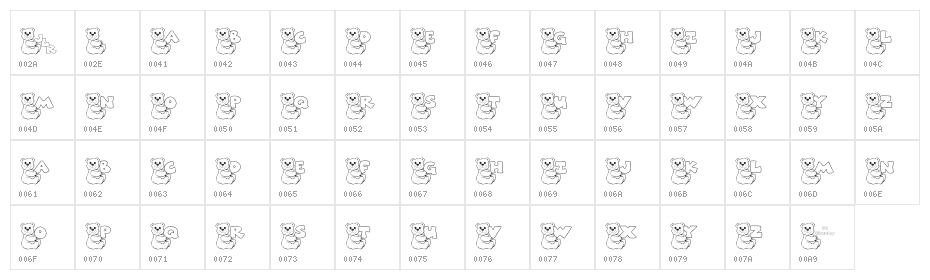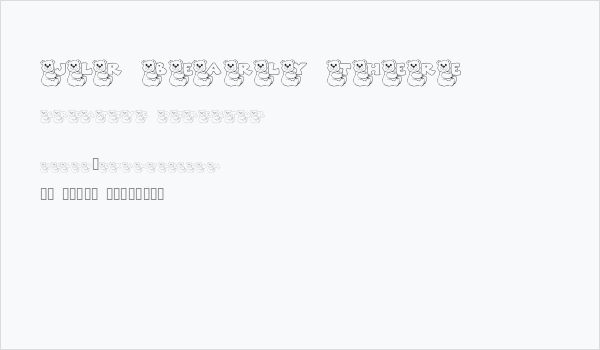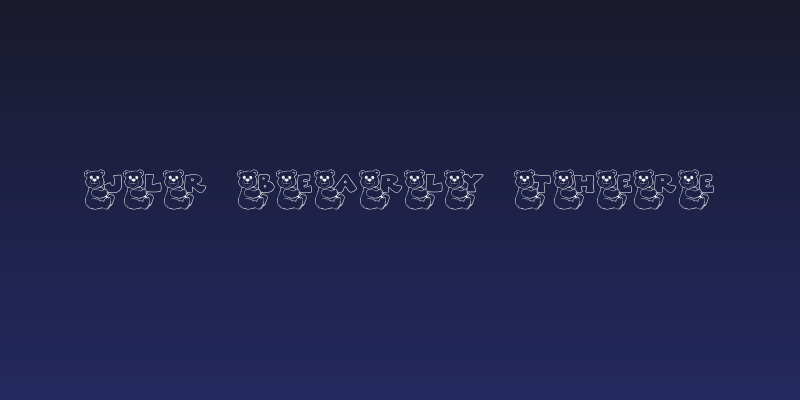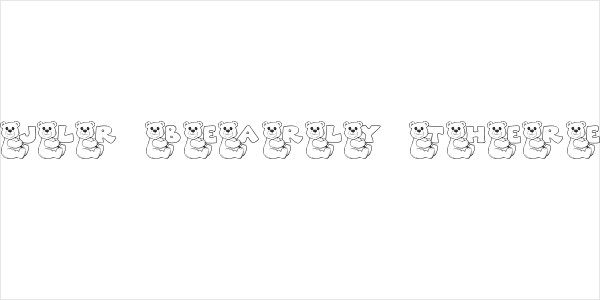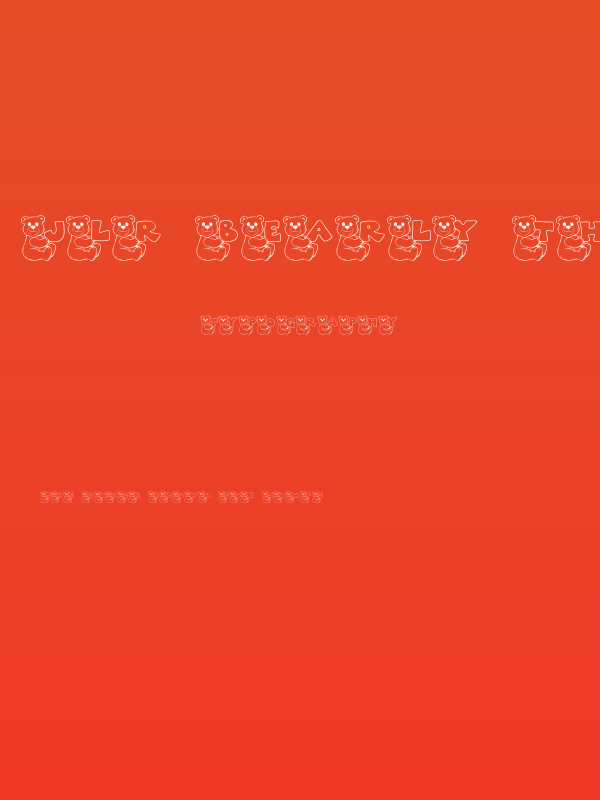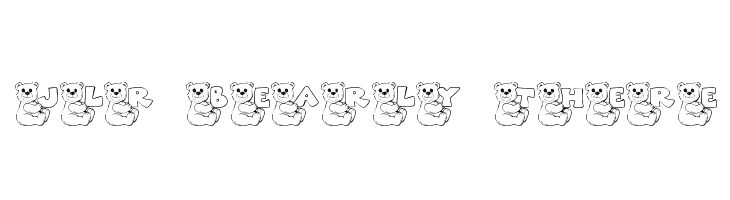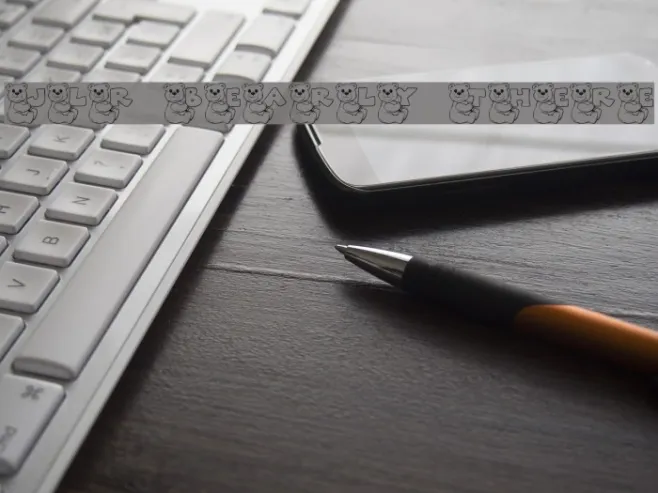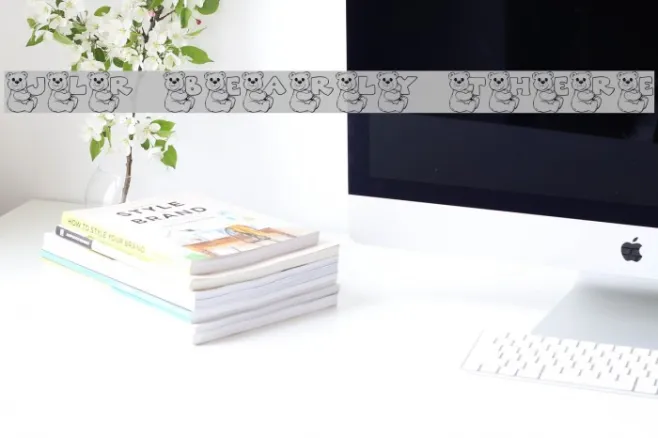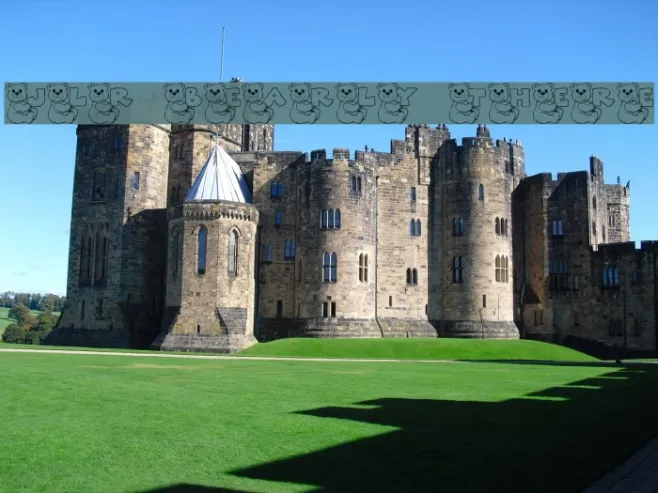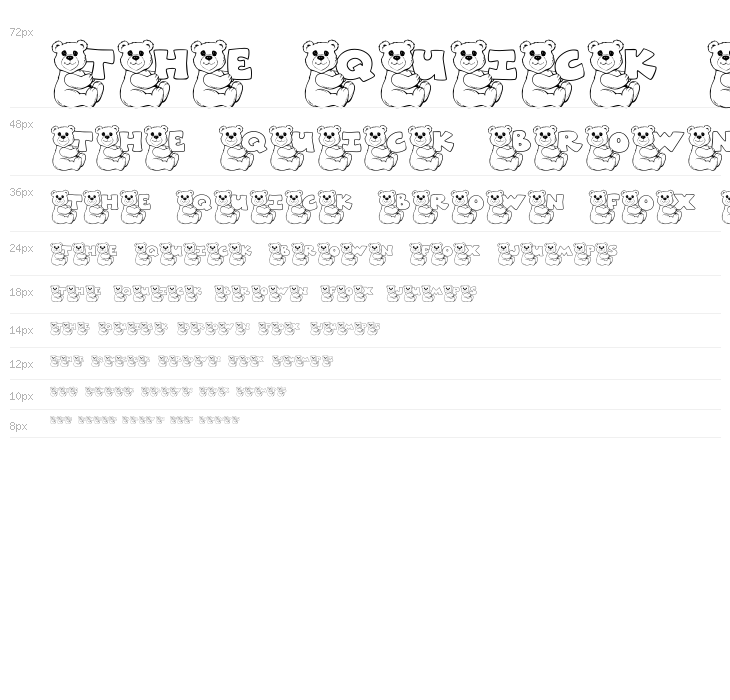
JLR Bearly There Font
JLR Bearly There Description
This playful and whimsical font features each letter nestled within the outline of an adorable bear, creating a charming and unique visual appeal. The design is consistent across both uppercase and lowercase letters, maintaining a cohesive look. The font is perfect for projects aimed at children or for adding a touch of fun and creativity to any design. The bears are detailed yet simple, ensuring that the letters remain legible while still providing a decorative element. This font is ideal for use in playful contexts, such as children's books, educational materials, or themed party invitations.
| Proposed Projects | Children's books, educational materials, themed invitations, playful branding. |